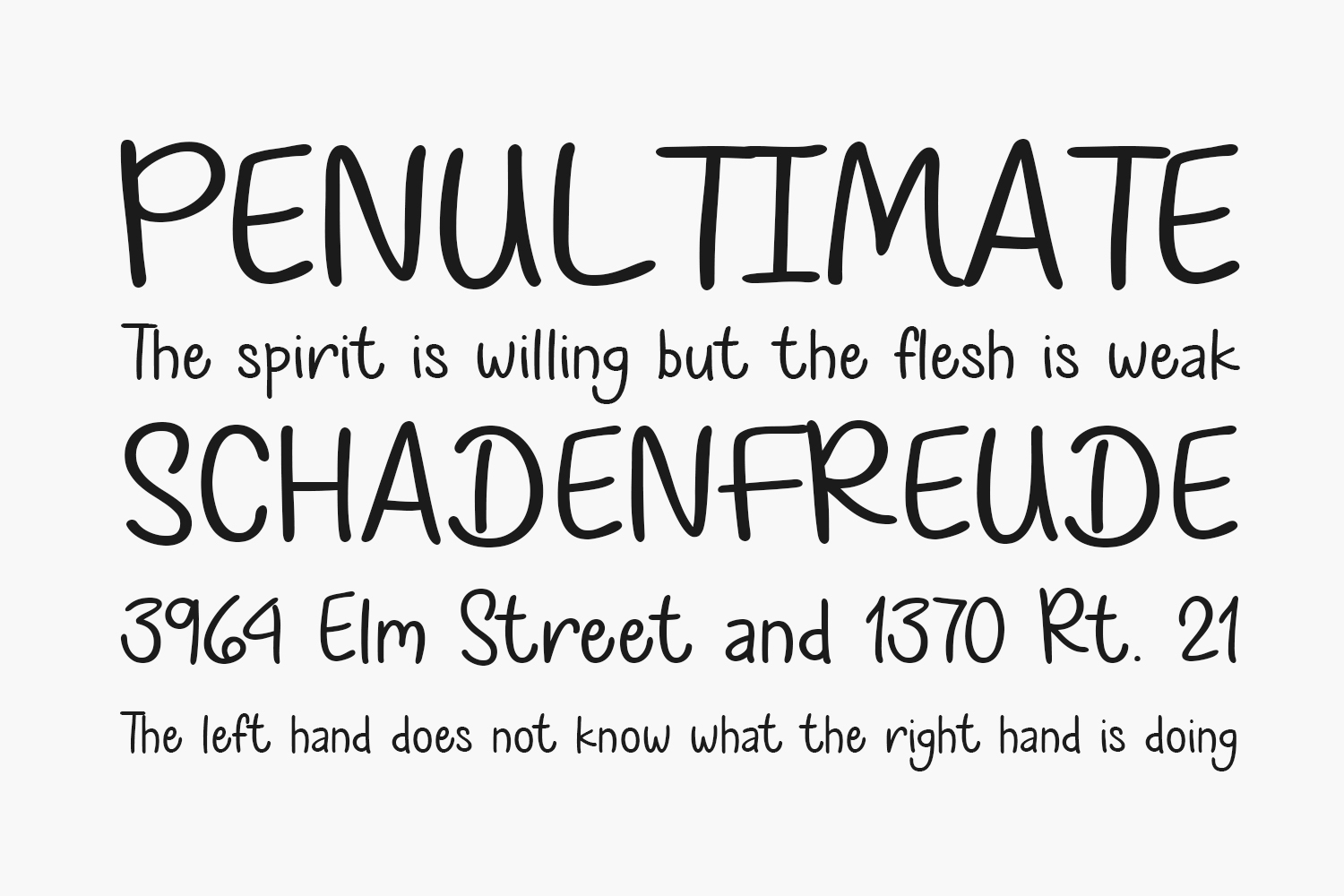
Stork Delivery Free Font is the ultimate choice for infusing your designs with a delightful personal touch. Boasting a whimsical and playful demeanor, this font is tailor-made for crafting charming greeting cards, captivating blog post images, and endearing baby-themed products. Its irresistible style is guaranteed to mesmerize your audience and impart a heartwarming aura to your projects. Don’t delay any longer—experience the enchantment of The Stork Delivery font today and witness its magical effect firsthand. Stork Delivery Free Font is free for personal use only. Please purchase the full version for commercial use.